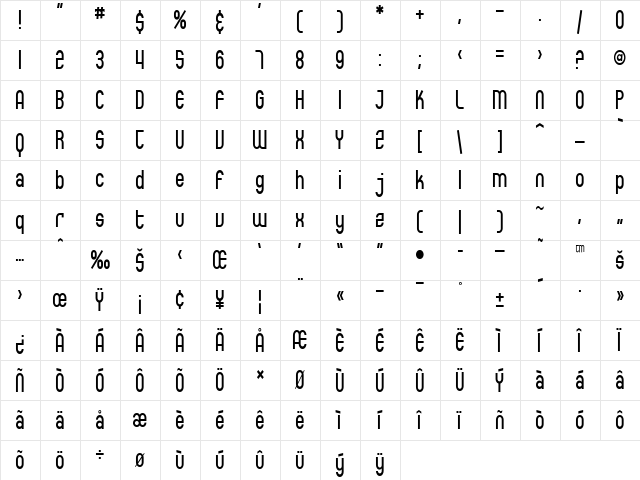
SF Eccentric Opus Condensed Regular
Design Context for SF Eccentric Opus Condensed Typeface
SF Eccentric Opus Condensed offers clean, dependable letterforms without strong stylistic allegiance, making it a practical choice for designers who need flexibility. The condensed width makes it efficient for tight spaces without sacrificing legibility.